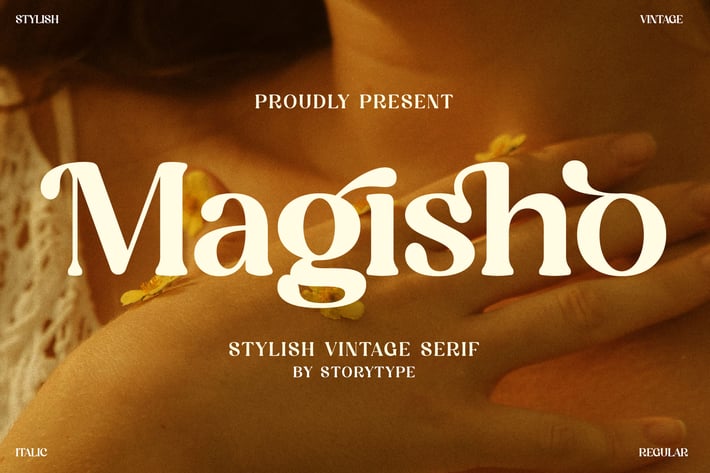
Magisho Stylish Vintage Serif Font
Magisho is a stylish vintage serif font that blends classic charm with modern elegance. With its bold curves and refined letterforms, this typeface adds a timeless character to any project, making your design stand out with sophistication and style.
+ Uppercase & lowercase letters
+ Numbers & punctuation
+ Stylish serif details with vintage touch